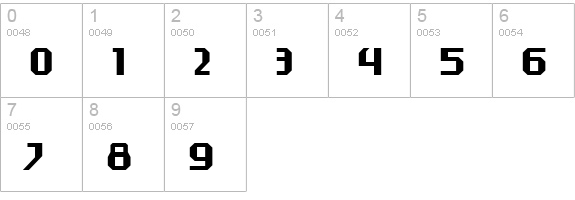
DexGothicSolD Font Details
DexGothicSolD is a stunning and versatile font that exudes a sense of modernity and sophistication. With its clean lines and sleek design, this typeface is perfect for a wide range of projects, from branding to editorial design. The sharp edges and bold letterforms of DexGothicSolD make it a standout choice for those looking to make a statement with their typography. What's even better is that DexGothicSolD is available for free download at FontsMarket.com. This means that you can easily access this exceptional font without having to spend a penny. So why wait? Elevate your designs with DexGothicSolD today and make a lasting impression with its unique style and elegance.